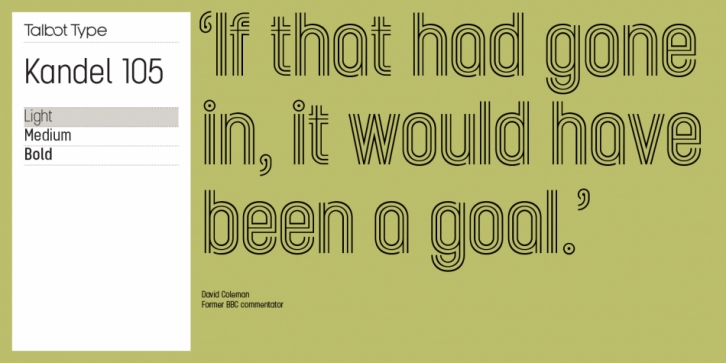
Kandel 105 is a display sans font family. This typeface has six styles and was published by Talbot Type.
Kandel 105 is a geometric, tri-line, display and headline font available in a family of three weights. Its bold, graphic styling gives it great stand-out qualities and a highly individual look. It’s particularly well suited to bringing energy to designs, or for designs with a sporting theme.
It’s also available with character variations as Kandel 205. Kandel 105 has sharper corners on some characters, while Kandel 205 is more curvaceous.